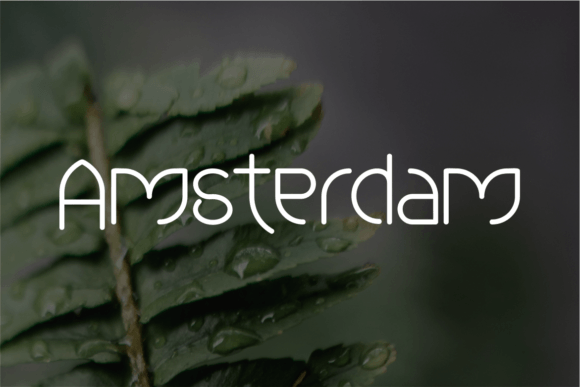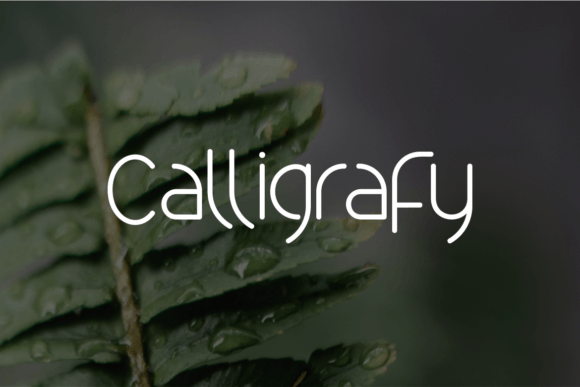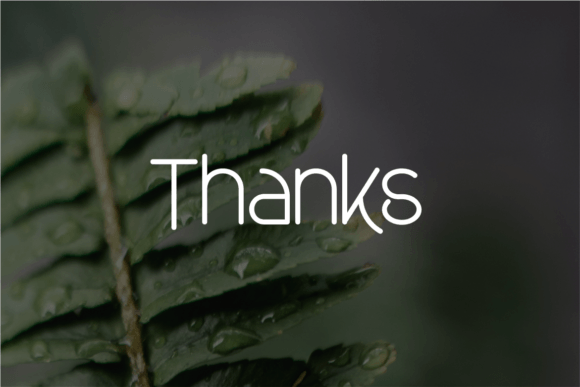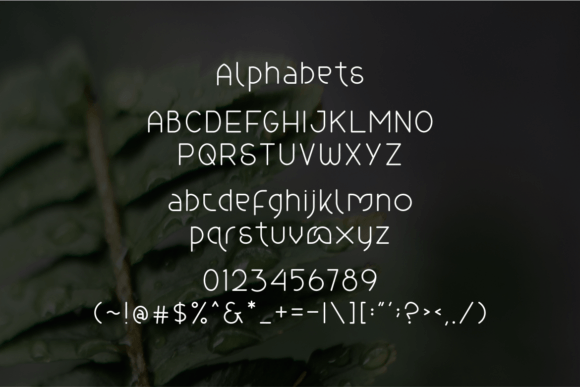
Discover the Unique Charm of Callimanten Font
In the world of typography, fonts play a crucial role in conveying messages, expressing creativity, and setting the tone for a brand or design. Among the numerous fonts available, Callimanten Font stands out for its distinctive characteristics, blending the elegance of calligraphy with the simplicity of sans serif fonts. In this article, we’ll explore the features, benefits, and uses of Callimanten Font, making it a must-know for designers and crafters alike.
What is Callimanten Font?
Callimanten Font is a sans serif font that boasts a curved, calligraphic flair, while maintaining the clean lines and simplicity of sans serif fonts. At first glance, it may resemble Japanese fonts, but upon closer inspection, its unique features become apparent. The uppercase letters utilize the original Sans Serif Font, setting it apart from other fonts in its category.
Key Characteristics of Callimanten Font
- Curved and Calligraphic: Callimanten Font features smooth, curved lines reminiscent of calligraphy, adding an touch of elegance to any design.
- Sans Serif: The font’s clean and simple sans serif lines ensure that its characteristics remain visible, making it highly legible.
- Unique Uppercase: The use of original Sans Serif Font for uppercase letters sets Callimanten Font apart from other fonts, adding to its distinctive charm.
- Versatile: Callimanten Font’s versatility makes it suitable for a wide range of design applications, from branding and advertising to crafting and DIY projects.
Benefits of Using Callimanten Font
Callimanten Font offers several benefits for designers and crafters, including:
- Enhanced Creativity: The font’s unique blend of calligraphy and sans serif lines inspires creativity and adds a touch of sophistication to designs.
- Improved Legibility: Callimanten Font’s clean lines and simple design ensure that text remains easy to read, even at small sizes.
- Brand Differentiation: The font’s distinctive features make it an excellent choice for brands seeking to establish a unique visual identity.
Using Callimanten Font in Design and Crafting
Callimanten Font’s versatility makes it suitable for a wide range of design applications, including:
- Branding and Advertising: Use Callimanten Font to create eye-catching logos, posters, and advertisements that showcase your brand’s personality.
- Crafting and DIY Projects: Add a touch of elegance to your crafting and DIY projects, such as handmade cards, invitations, and gift tags.
- Digital Design: Incorporate Callimanten Font into your digital designs, including social media graphics, blog posts, and website headers.
Tips for Working with Callimanten Font
To get the most out of Callimanten Font, consider the following tips:
- Experiment with Sizes: Callimanten Font looks great at various sizes, from small captions to large headlines.
- Pair with Other Fonts: Combine Callimanten Font with other fonts to create visually appealing contrast and add depth to your designs.
- Play with Colors: Take advantage of Callimanten Font’s versatility by experimenting with different colors and textures.
Callimanten Font is a unique and versatile font that offers a refreshing alternative to traditional fonts. Its blend of calligraphy and sans serif lines makes it perfect for designers and crafters seeking to add a touch of elegance and sophistication to their work. With its numerous benefits, uses, and tips for working with the font, Callimanten Font is an excellent addition to any design toolkit.